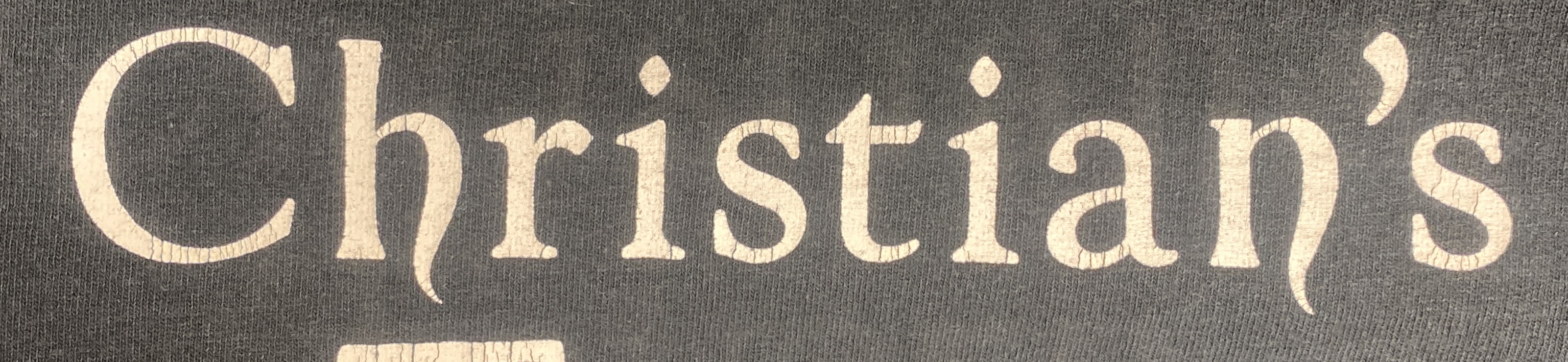
There are at least three different fonts at play here... predominantly Goudy Old Style for the bulk of text.
The "h" and "n" are from Rafael... with a little softening and node editing to better fit in with the Goudy.
The "P" appears to be from Zapf Chancery... (or some other calligraphic type face of the same style) ...again with some softening, etc.
There may in fact be some single font? using these characters as alternates, but non that I find or have ever seen.
The h and n are doing no good for the layout, the lettering on their website looks much better, even if they mixed and matched weights.
Looks like they aimed to match this old mustard jar? Maybe signosaurusrex can name these fonts too.
You funny! The logo / lettering for the label was clearly created well before "fonts" came about. The letter style used for the label was most likely hand rendered and loosely based on a style not peculiar to signwriters of the time. The P,h and n have a close resemblance to a lighter weight "font" called Katherine from Dan X. Solo.
Dan X. Solo is known for early font creations based images done by various signwriters and lettering artists over the last century.